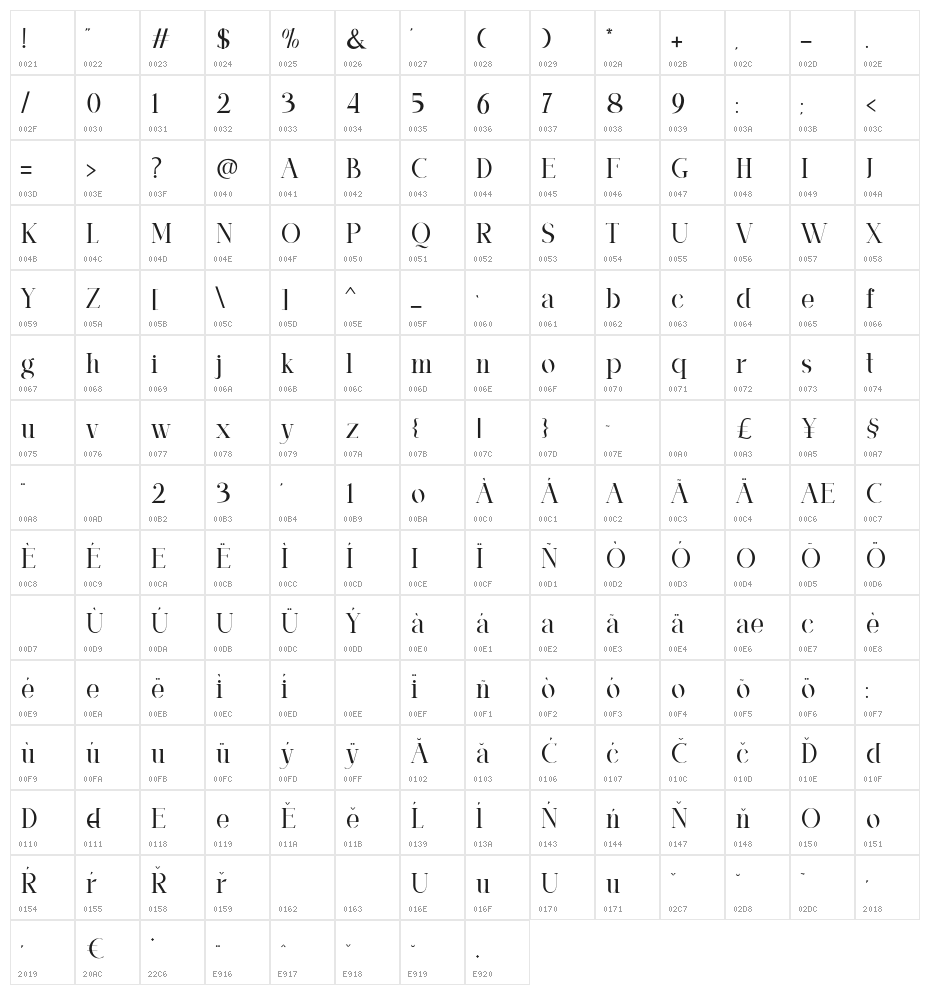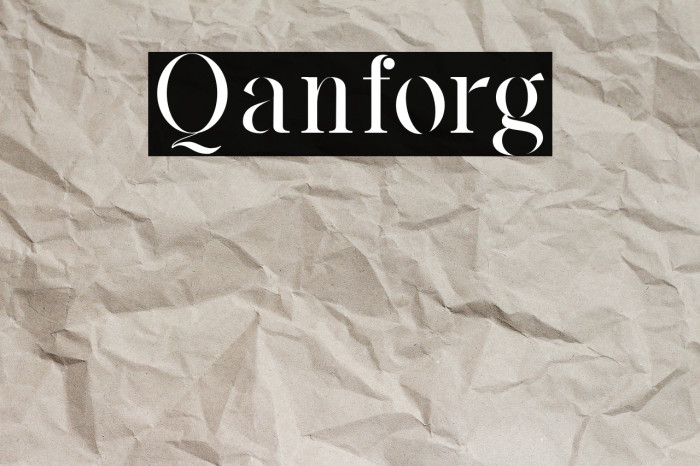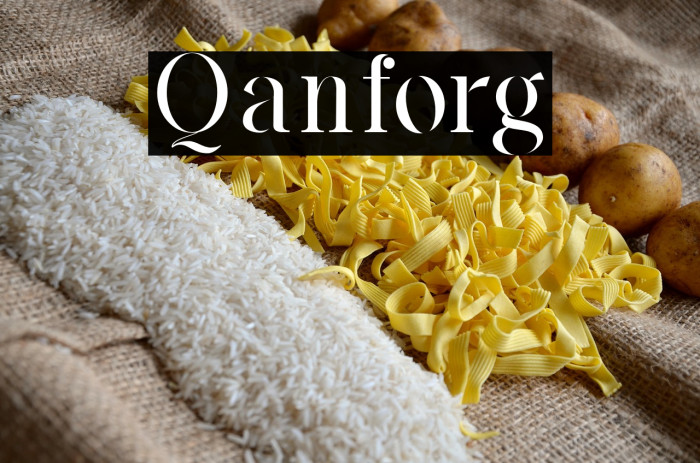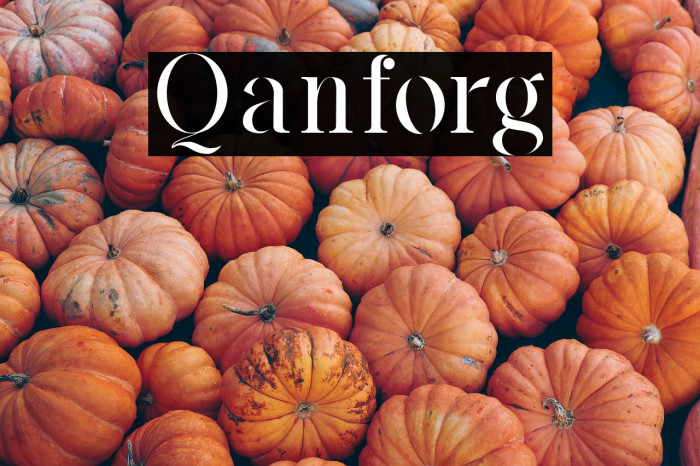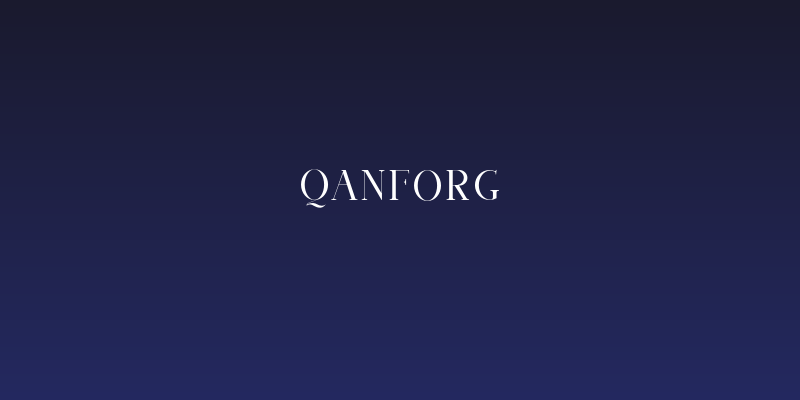
Qanforg Font
Qanforg Description
This font features a classic serif style with elegant and refined strokes. The uppercase letters are tall and stately, with pronounced serifs that add a touch of sophistication. The lowercase letters maintain a consistent style, offering a harmonious blend of curves and angles. The numerals are clear and distinct, making them easy to read. Special characters are designed with the same attention to detail, ensuring a cohesive look across all glyphs. The overall appearance is both timeless and versatile, suitable for a variety of design applications.